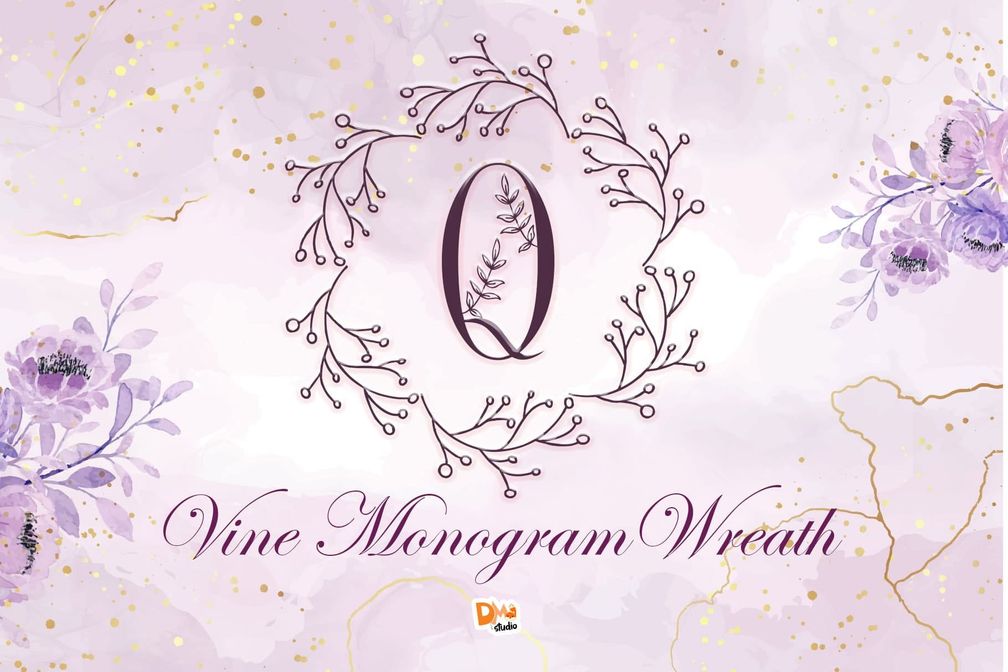
Vine Monogram Wreath Font
Vine Monogram Wreath Font is a sophisticated and elegant typeface designed to add a touch of refinement and nature-inspired beauty to your monogram projects. Perfect for wedding invitations, personalized stationery, logos, and home decor, this font brings an exquisite combination of floral elegance and stylish monogram design to your creations.
1. Elegant and Sophisticated Design: The Vine Monogram Wreath Font features a beautiful blend of vine and wreath elements, creating a refined and nature-inspired aesthetic for your monograms.
2. Perfect for Monograms: Ideal for creating personalized monograms for wedding invitations, stationery, logos, and more.
4. High-Quality Graphics: Detailed and intricate letterforms that enhance the visual appeal of your designs.